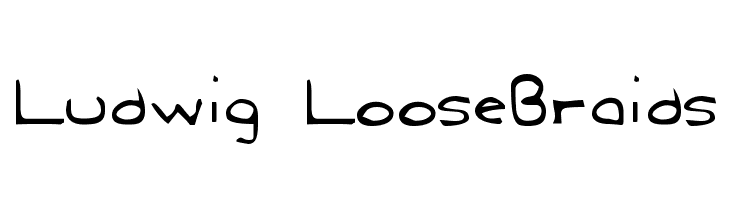
A dynamic, edgy handwritten font with sharp, angular strokes.
A playful, handwritten font with thin, flowing strokes and a whimsical style.
A modern, elegant font with clean lines and balanced structure.
A bold, playful handwritten font with dynamic strokes.
A playful, handwritten font with dynamic strokes and a creative flair.